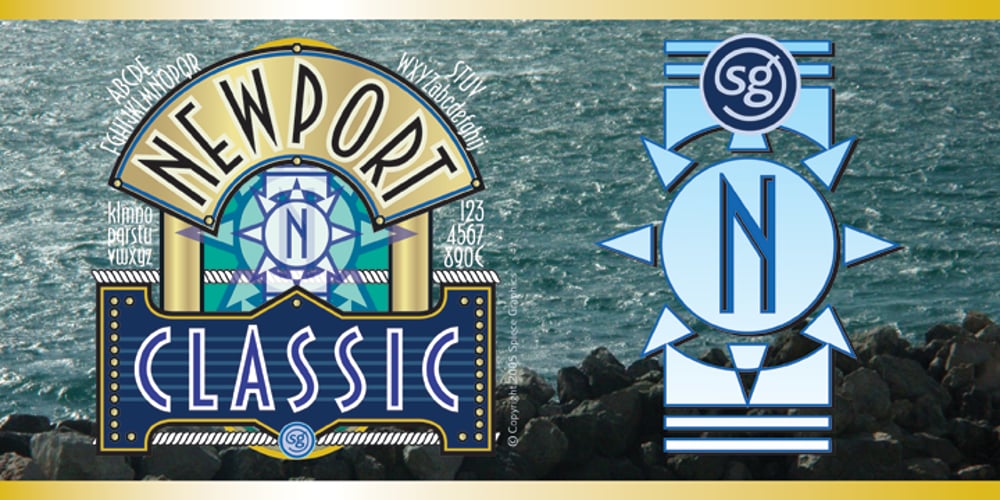
Newport Classic SG Font Family was designed by Willard T. Sniffin, Jim Spiece and published by Spiece Graphics. Newport Classic SG contains 1 styles and family package options. Willard T. Sniffin designed this extra condensed art deco typeface for American Type Founders in 1932. Low-waisted capital letters curve in stunning geometric fashion next to large, oversized lowercase letters. The heart of this classic design is undeniably 1930s but it also looks just fine in contemporary situations. Many of the original alternate characters plus a few new ones have been included in this complete digital version. Newport Classic with Alternates is also available as an OpenType font. This version now contains small caps, lining and oldstyle figures, prebuilt fractions, stylistic alternates, word ornaments and a wide assortment of f-ligatures. These advanced features currently work in Adobe Creative Suite InDesign and Illustrator. Check for OpenType advanced feature support in other applications as it gradually becomes available with upgrades.